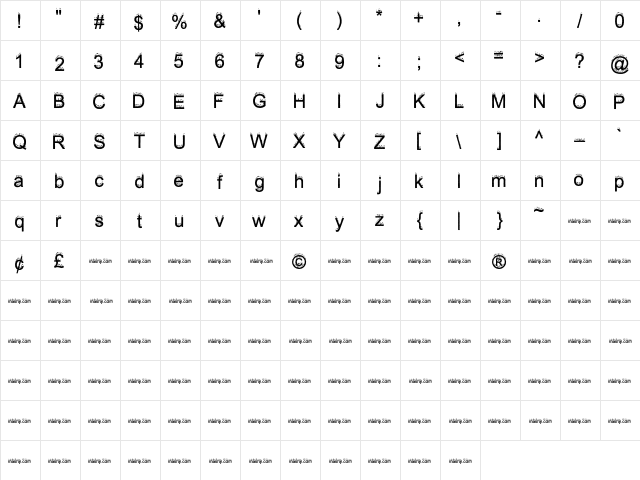
mashy Fire mashyFire Regular Font Preview
mashy Fire mashyFire Regular
mashy Fire mashyFire Regular Font Details
| Style | mashyFire Regular |
| Designer | Ombra |
Design Context for mashy Fire Typeface
mashy Fire takes a measured approach to typography — its balanced proportions and neutral character make it a reliable workhorse for both digital and print work.